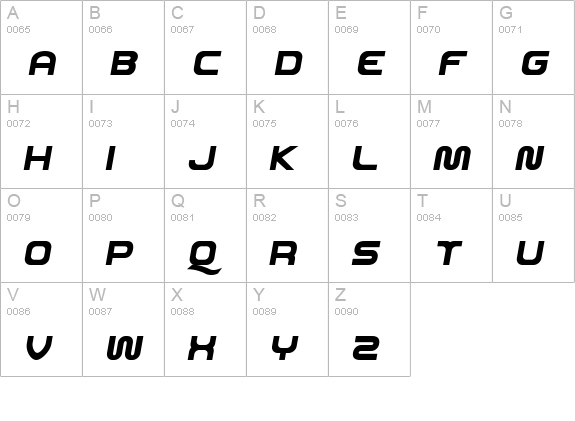
RolandTR505 Font Details
The RolandTR505 font is a versatile and stylish typeface that exudes a retro and nostalgic vibe. With its sleek lines and bold characters, this font is perfect for a wide range of design projects, from posters to logos to social media graphics. The best part? It's completely free to download at FontsMarket.com, so you can add a touch of vintage flair to your creations without breaking the bank. Embrace the classic appeal of the RolandTR505 font and give your designs a timeless charm that will stand out from the crowd.